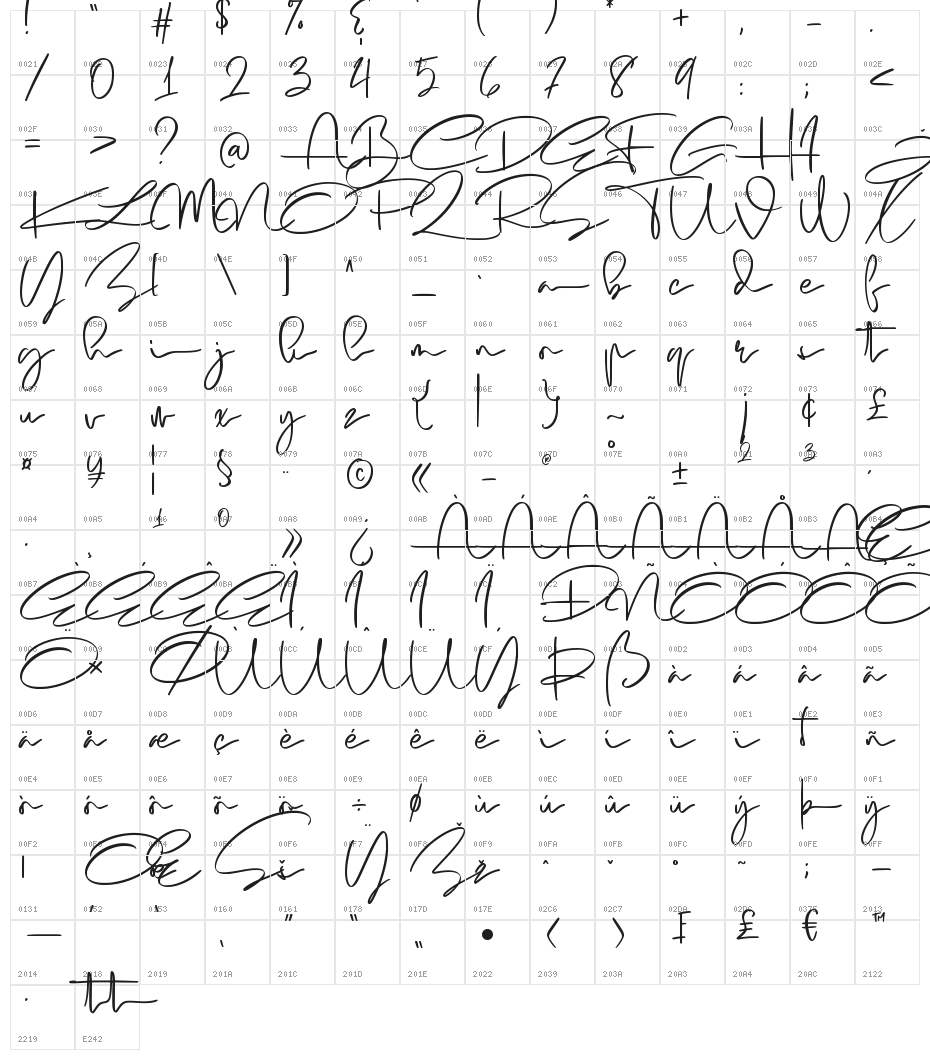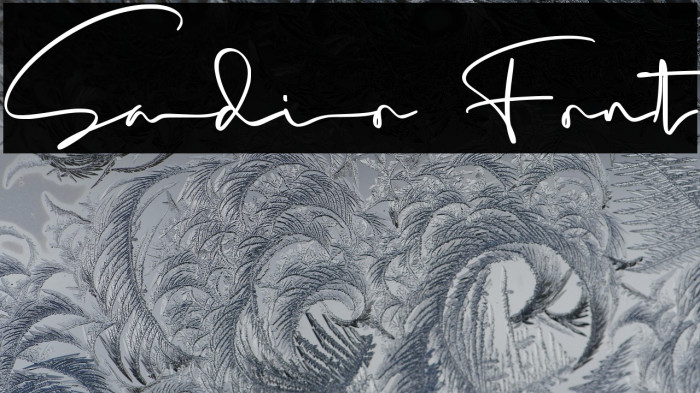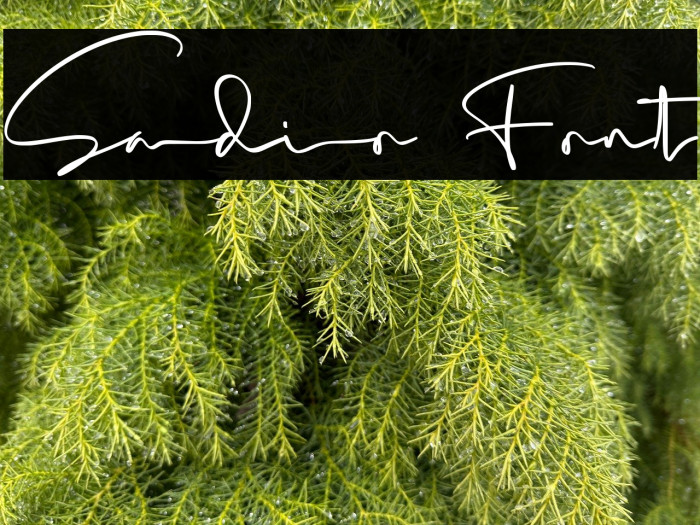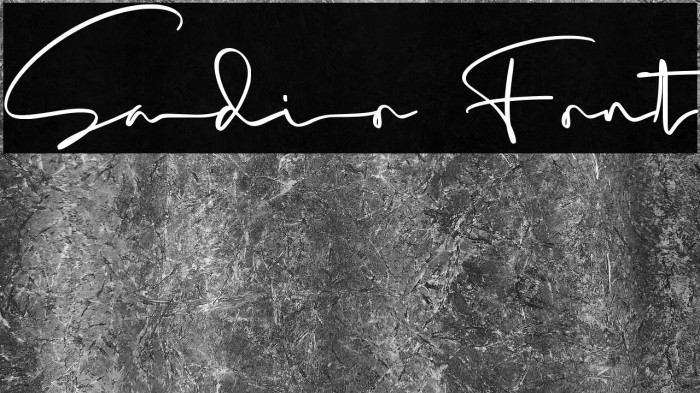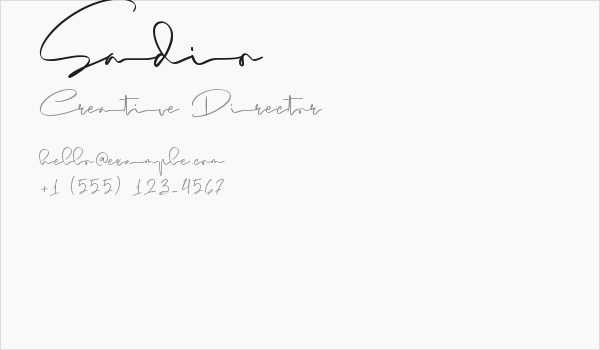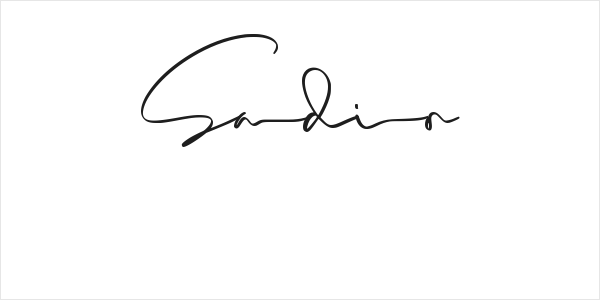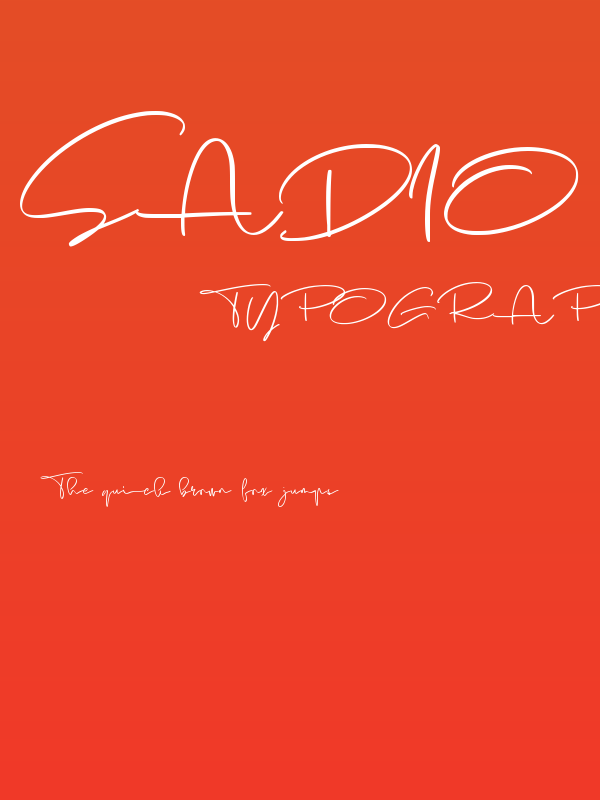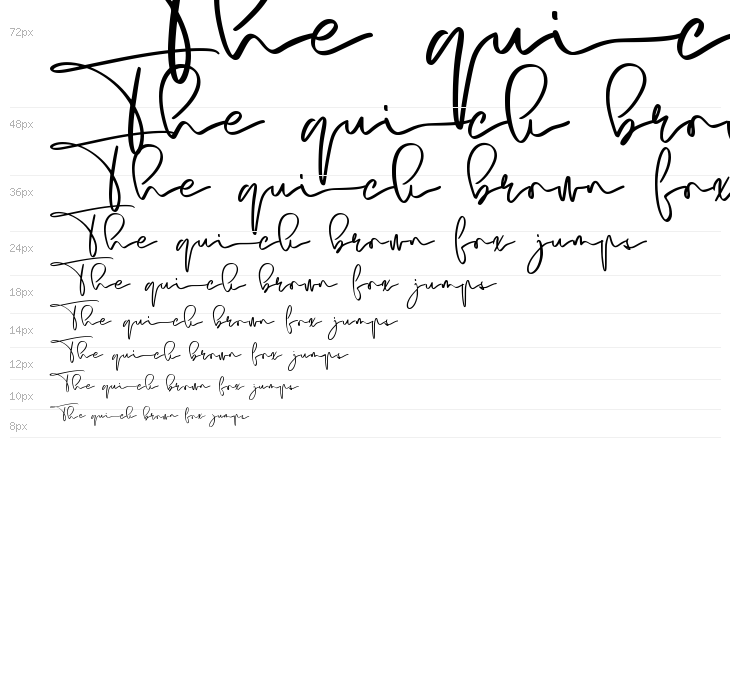
Sadio Font
Sadio Description
This font features a flowing, cursive style that mimics natural handwriting with a modern twist. The uppercase letters are elegantly connected, while the lowercase letters maintain a consistent, fluid motion. The numerals and special characters are designed to complement the overall aesthetic, providing a cohesive look. The strokes are smooth and continuous, giving the font a sense of movement and grace. This font is perfect for projects that require a personal touch, such as invitations, greeting cards, or branding materials. Its unique style makes it stand out while remaining legible and versatile.
| Use Case | Logos, Headlines, Decorative text |
| Proposed Projects | Ideal for invitations, greeting cards, branding, and personal projects. |